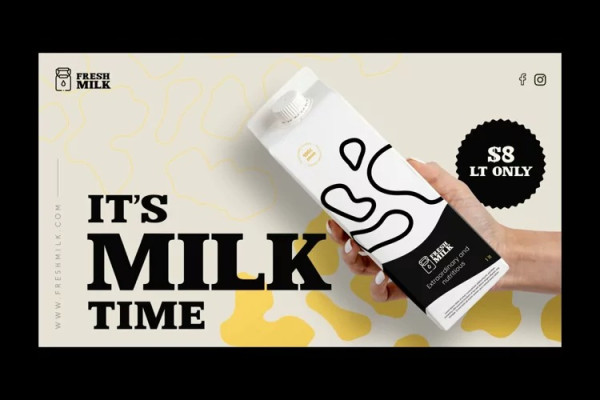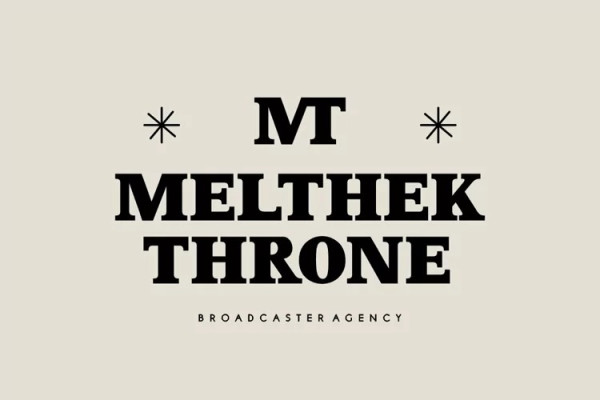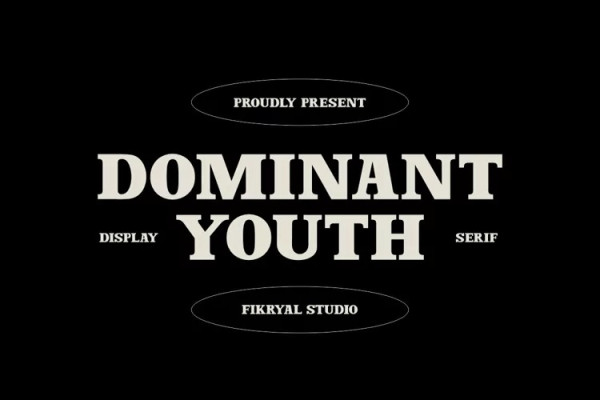
Dominant Youth Font
Dominant Youth Font, a bold and impactful display serif font that exudes confidence and strength. With its commanding presence, it is designed to make a lasting impression on any creative project.
The font’s robust and assertive letterforms showcase a unique blend of classic elegance and contemporary style. Its tall and slender structure adds a touch of sophistication, while the sharp serifs give it a distinctive edge. it is carefully crafted to capture attention and evoke a sense of boldness and youthfulness.
Whether you’re working on branding, editorial design, headlines, posters, or any other project that demands attention, it is the perfect choice. Its versatile nature allows it to excel in both digital and print mediums, ensuring your message stands out in a captivating manner.
The well-defined characters of Dominant Youth provide excellent legibility, even at smaller sizes. The font’s wide range of weights and styles offers flexibility, allowing you to experiment and find the perfect balance for your design needs. From light and elegant variations to bold and impactful options, Dominant Youth empowers you to create visually striking compositions that leave a lasting impression.
Don’t settle for ordinary typography when you can make a statement with Dominant Youth. Embrace its commanding presence, embrace its youthful energy, and elevate your designs to a new level of distinction.